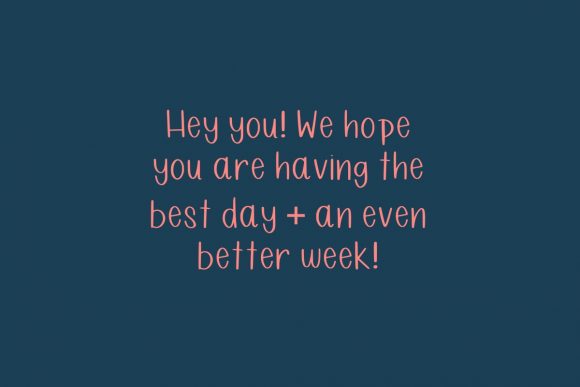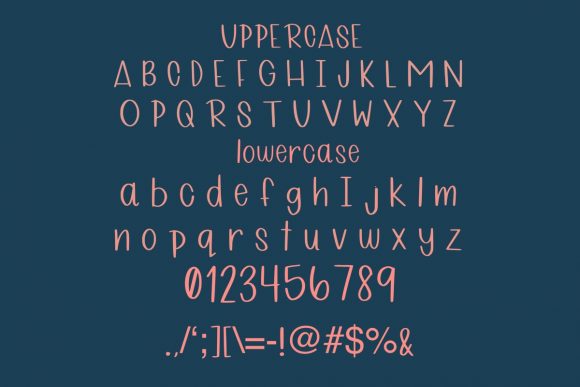
Are you a designer, crafter, or DIY enthusiast looking to add a personal touch to your projects? Look no further than the Creative Text font, a playful handwritten font that’s perfect for creating an authentic, hand-crafted look. In this article, we’ll explore the features and benefits of Creative Text, and show you how to make the most of this versatile font.
What is Creative Text Font?
Creative Text is a carefully crafted handwritten font that includes the entire alphabet (lowercase and capitals), numbers 0-9, and a selection of punctuation marks. This comprehensive font is designed to help you add a touch of personality to any project, from handmade cards and invitations to digital art and craft designs.
Key Features of Creative Text Font
- Entire alphabet (lowercase and capitals): Create custom text with a personal touch, using a wide range of letters to suit any project.
- Numbers 0-9: Add numerical elements to your designs, from dates and times to quantities and measurements.
- Punctuation marks: Complete your text with essential punctuation marks, including periods, commas, and exclamation points.
- Playful, handwritten style: Give your projects a friendly, approachable feel with the Creative Text font’s unique, hand-crafted aesthetic.
Perfect for Crafters and Designers
Creative Text font is ideal for crafters and designers working on a variety of projects, including:
- Handmade cards and invitations: Add a personal touch to your correspondence with custom, hand-written text.
- Digital art and graphics: Use Creative Text to add text elements to your digital art, from social media graphics to blog posts.
Tips for Using Creative Text Font
To get the most out of Creative Text font, try these expert tips:
- Experiment with colors and textures: Combine Creative Text with a range of colors and textures to create visually striking designs.
- Mix and match font sizes: Vary font sizes to create visual interest and hierarchy in your designs.
- Add embellishments and graphics: Use Creative Text as a foundation for your designs, then add embellishments and graphics to enhance the overall look.